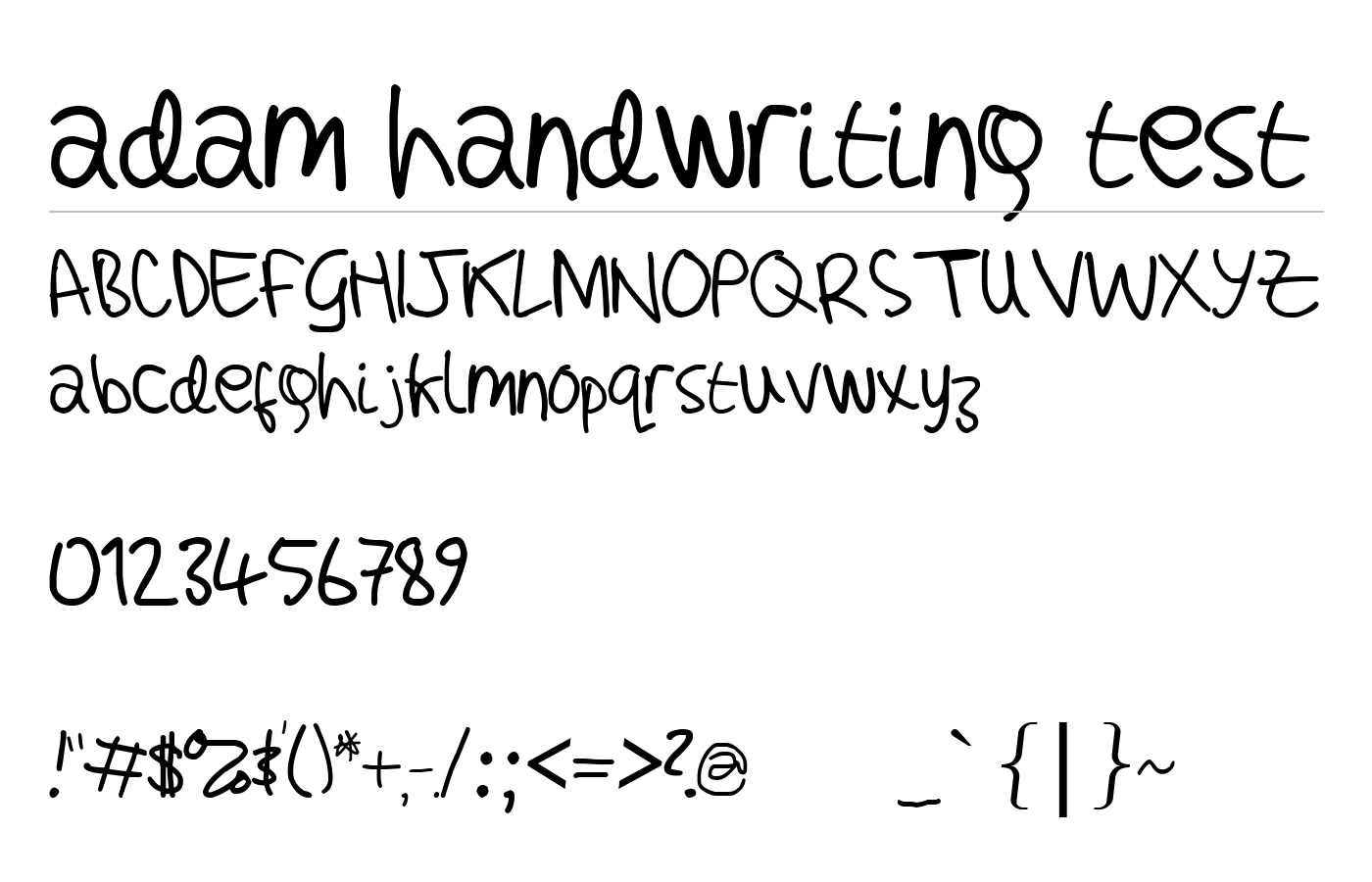
Adam Handwriting Test is a casual, playful handwritten font with a light weight and narrow width, featuring uneven strokes that mimic authentic pen writing. Its quirky, informal style brings a friendly and approachable vibe, making it perfect for creative projects, personal branding, or any design needing a touch of personality. This font works well in headlines, invitations, and casual communications where a natural, hand-drawn feel is desired.
adam handwriting test Font
About adam handwriting test Font